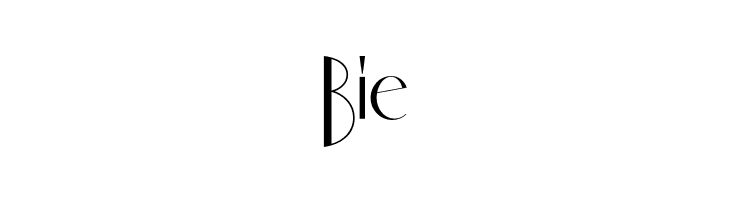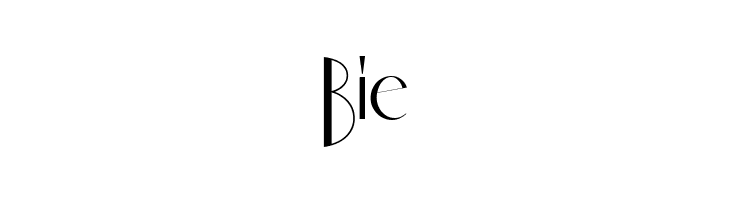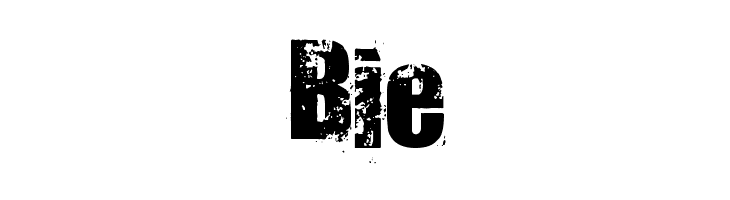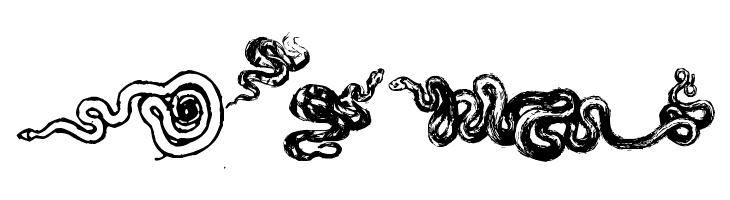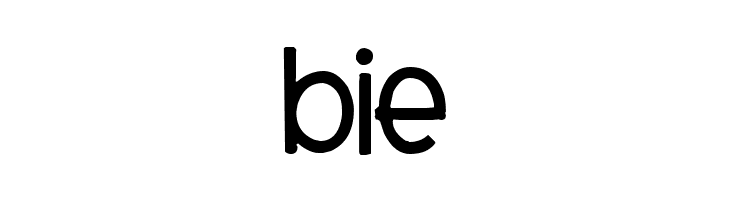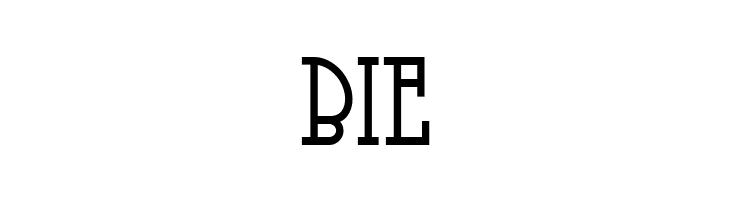
• Smart Frocks NF
A high-contrast, elegant font with artistic flourishes and a modern aesthetic.
• SmartFrocksNF
An elegant and artistic font with flowing lines and decorative flourishes.
• Smiley Monster
A playful, rounded font with a hand-drawn, whimsical style.
• Smirnof
• Smorgasbord NF
A bold, angular font with geometric and decorative elements, suitable for modern and vintage designs.
• Smudgers!"
• Snakepit
• Snappy Service NF
A bold, geometric font with a modern and dynamic style.
• SnappyServiceNF
A bold, modern font with geometric lines and a slightly condensed style.
• SNORG_002
A futuristic, geometric font with rounded edges and a sleek, modern design.